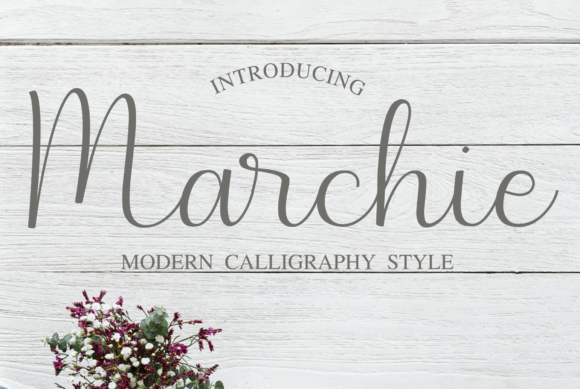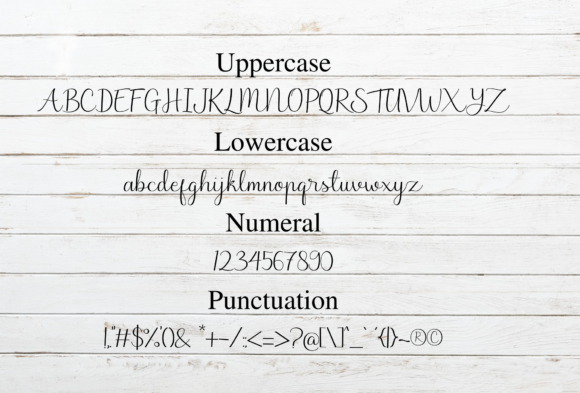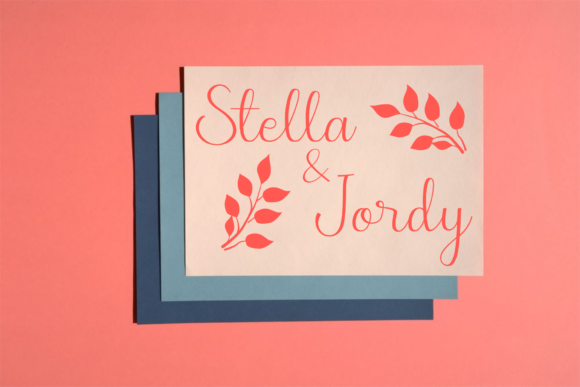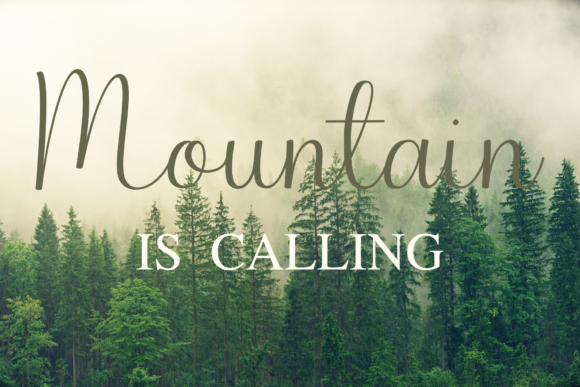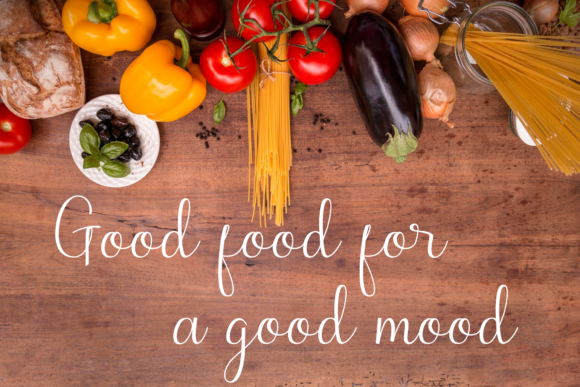
Marchie Font
About Marchie Font
The Marchie is modern calligraphy font. It has a great readability and will add an elegant feel to your designs.
It works perfect in the world of weddings, logos, greeting cards, branding, print ads, quotes, signage, magazines, and more!